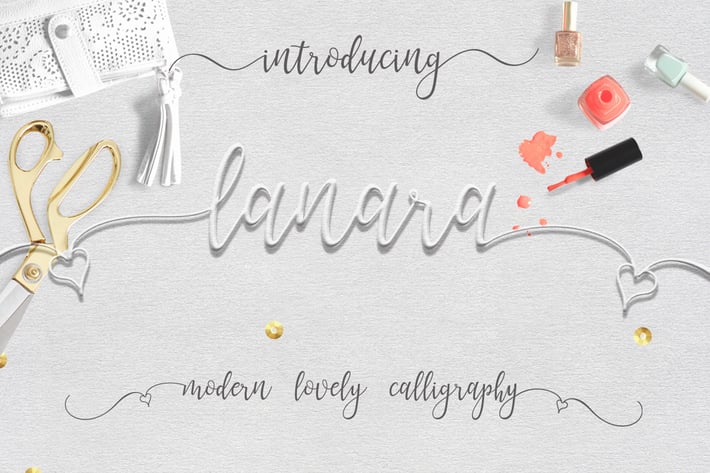
Lanara Script Font
Lanara Script font that is made with love, lanara script is suitable for branding, invitation, t-shirt, mailing, and and other suitable design you want.
Lanara Script features with :
+ Basic Glyphs, Numerals, Symbol and punctuation
+ Stylistic Sets 1 - 10
+ Stylistic Alternates
+ Ligatures and Discretionary Ligatures
+ Swash
+ Multilingual Support